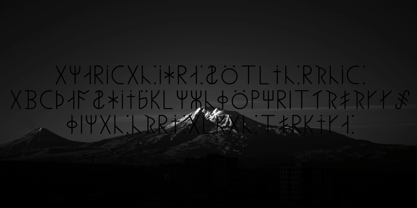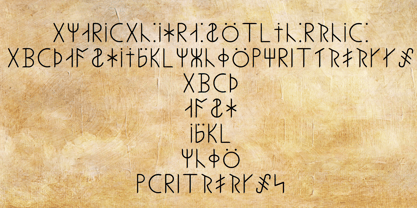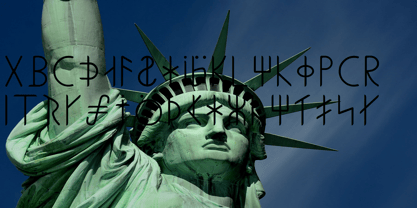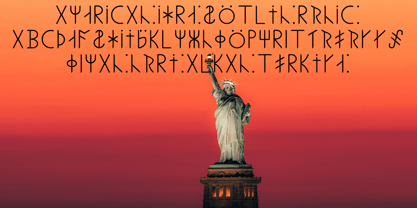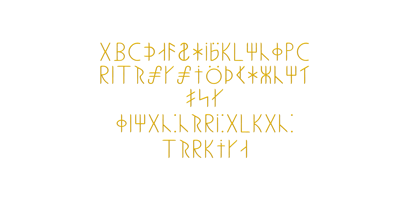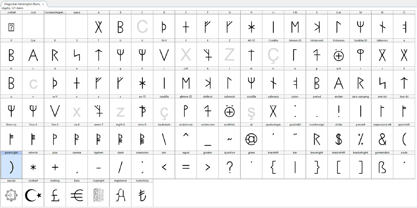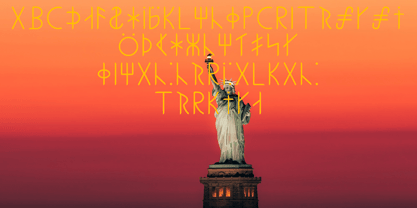
Ongunkan American Runics
by Runic World Tamgacı
The Ongunkan American Runics Font Family was designed by Osman Nuri ALKAN and published by Runic World Tamgacı. Ongunkan American Runics contains 3 styles and family package options. More about this family
The Kensington Runestone is a slab of greywacke stone covered in runes that was discovered in Western Minnesota, United States, in 1898. Olof Ohman, a Swedish immigrant, reported that he unearthed it from a field in the largely rural township of Solem in Douglas County. It was later named after the nearest settlement, Kensington. The inscription purports to be a record left behind by Scandinavian explorers in the 14th century (internally dated to 1362). There has been a drawn-out debate regarding the stone's authenticity, but since the first scientific examination in 1910, the scholarly consensus has classified it as a 19th-century hoax, with some critics directly charging Ohman with fabrication. Nevertheless, there remains a community convinced of the stone's authenticity. Ihre-Götlin Runic and Liljegren Runic are other examples of runic script in America. I couldn't find much information about them.
Designers: Osman Nuri ALKAN
Foundry: Runic World Tamgacı